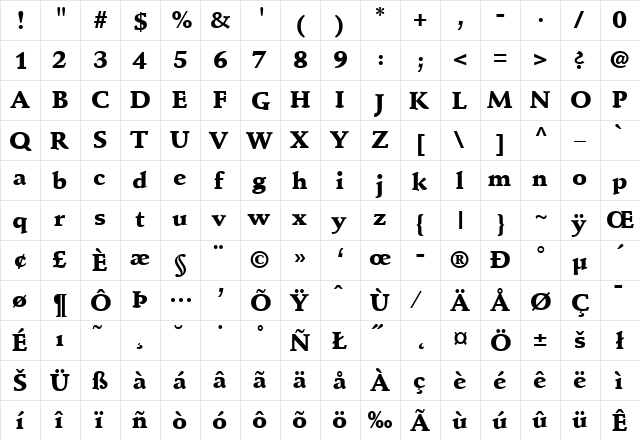
StempelSchneidler-Black Regular
Design Context for StempelSchneidler-Black Typeface
StempelSchneidler-Black is a composed and adaptable typeface that performs quietly and consistently across a wide range of design contexts.